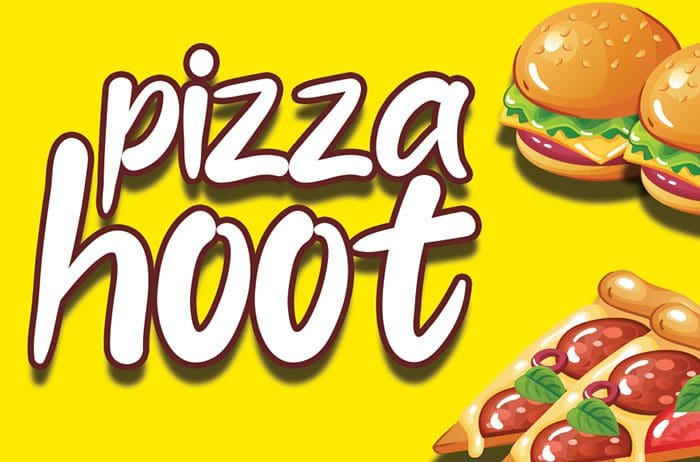
Pizza Hoot Serif Font
Pizza Hoot serif font is a cute and casual handwritten font with an incredibly friendly feel. This fantastic font is best suited for headlines of all sizes, as well as for blocks of text that have both maximum and minimum variations. Whether it’s for web, print, moving images or anything else – Pizza Hoot will look spectacular. Designed this font by Andika Studio. You can also search more free Serif Fonts.